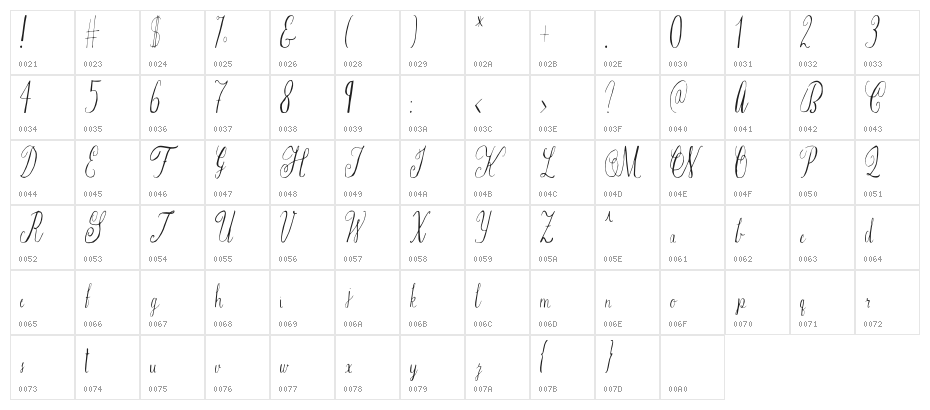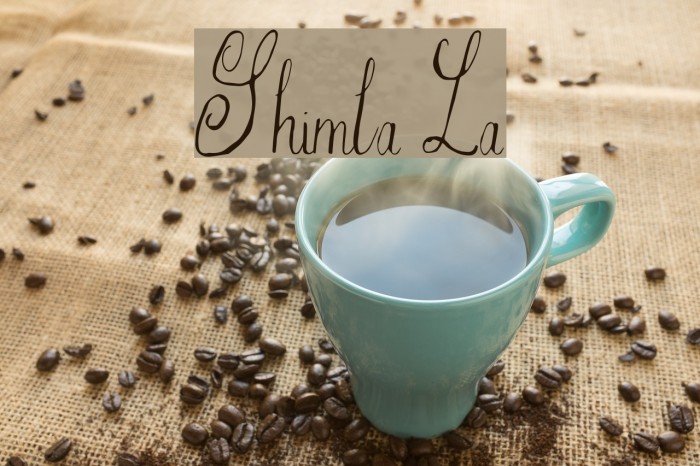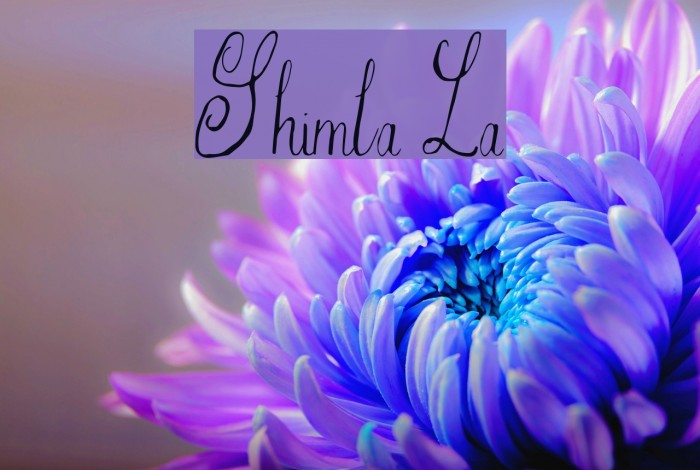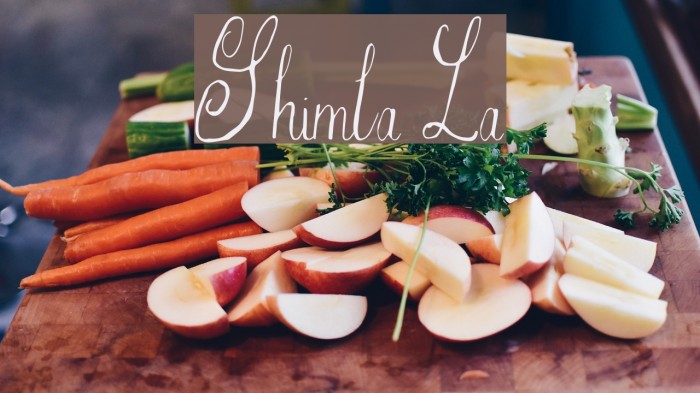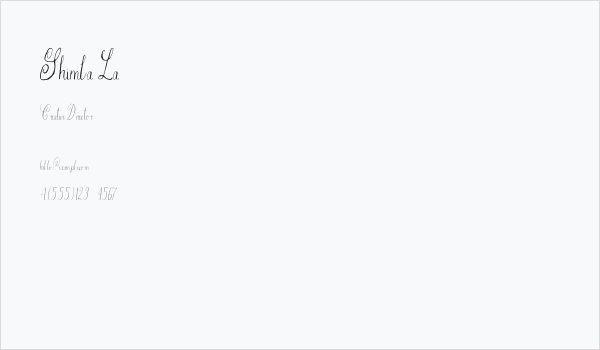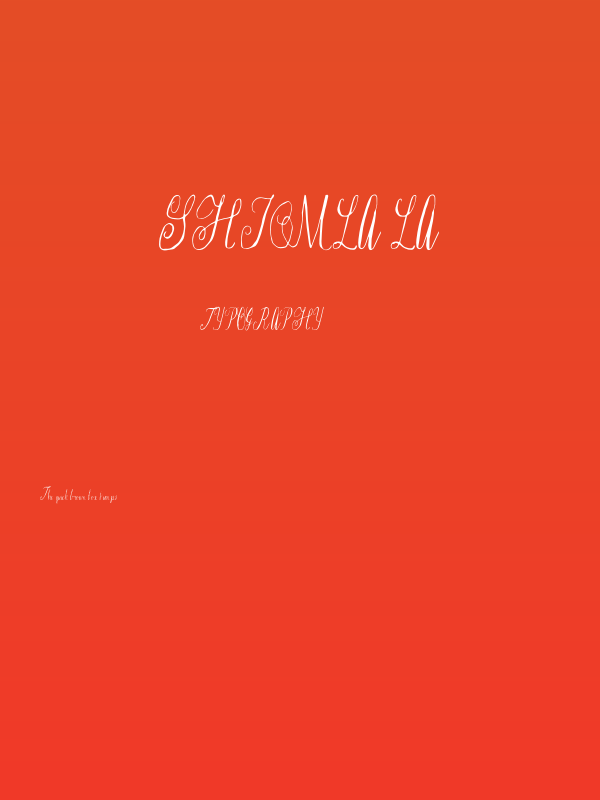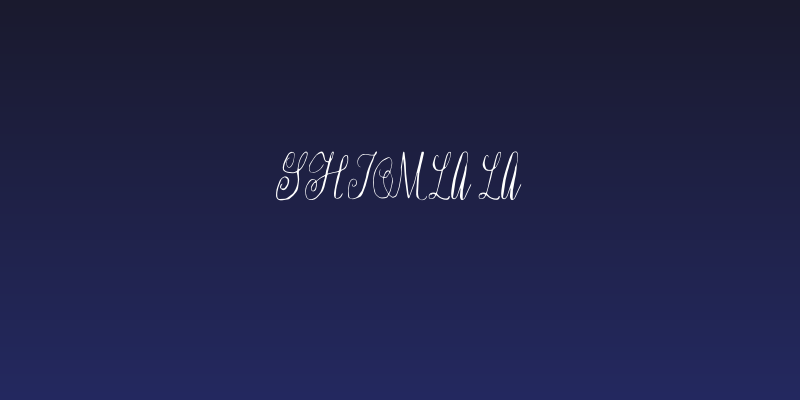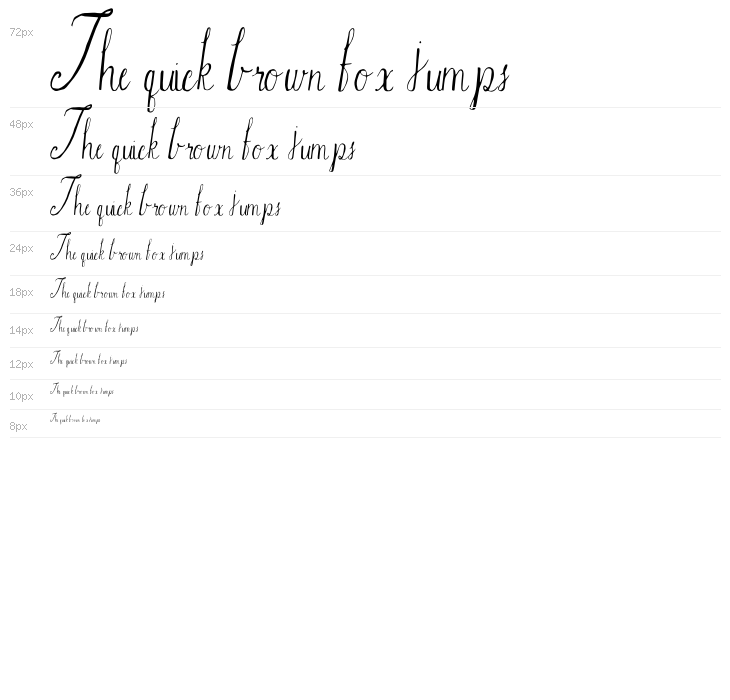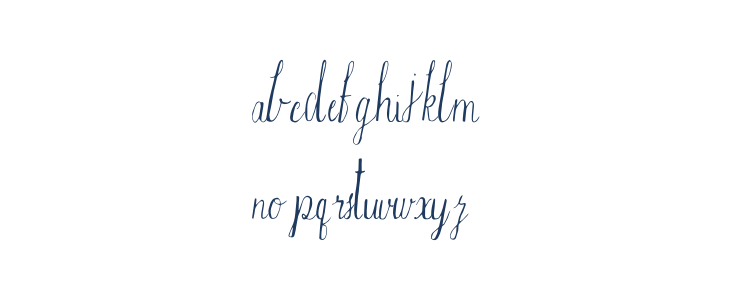
Shimla La Font
Shimla La Description
This elegant script font features flowing, interconnected letters with a distinct calligraphic style. The uppercase letters are tall and slender, with graceful loops and swashes that add a touch of sophistication. The lowercase letters maintain a consistent flow, enhancing readability while preserving the artistic flair. Numbers are similarly styled, with a slight slant and decorative elements that match the overall aesthetic. Special characters are designed to complement the script, ensuring a cohesive look across all text. The font's delicate strokes and refined curves make it ideal for projects that require a touch of elegance and class.
| Proposed Projects | Ideal for wedding invitations, elegant branding, greeting cards, and upscale packaging. |